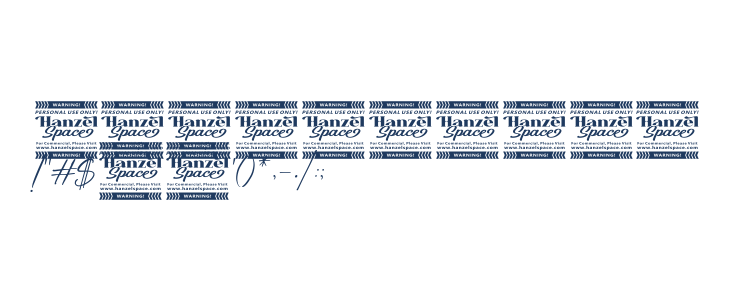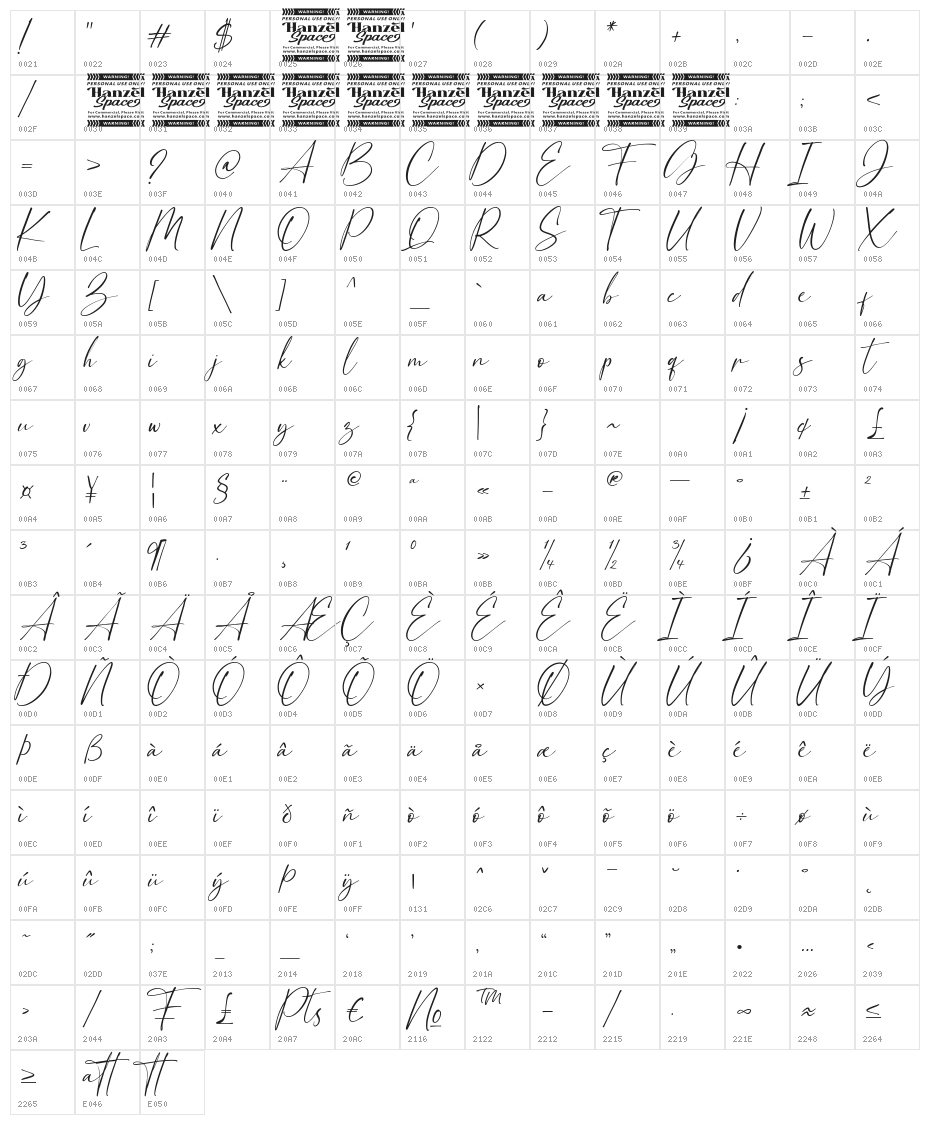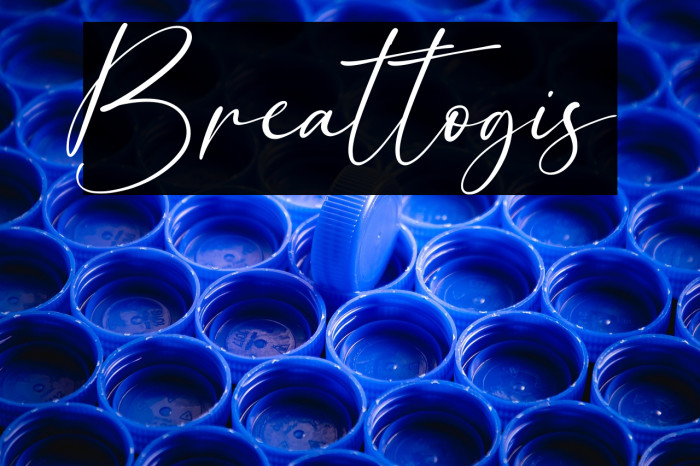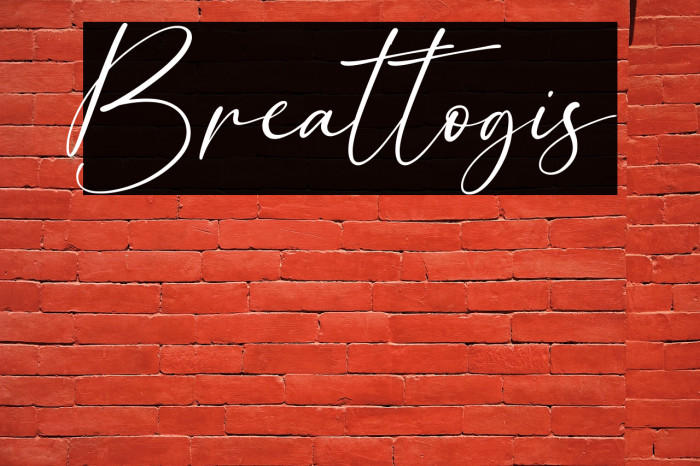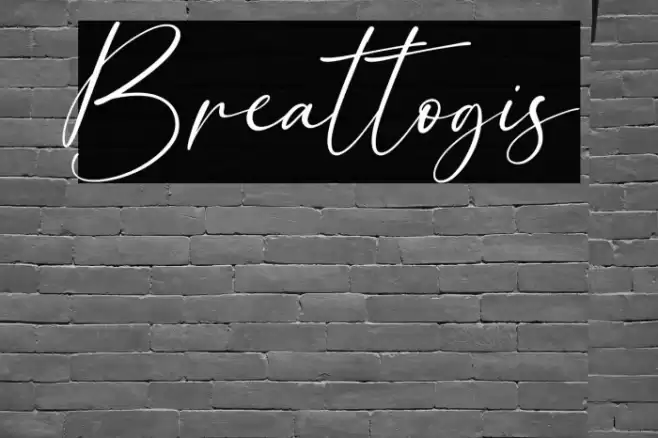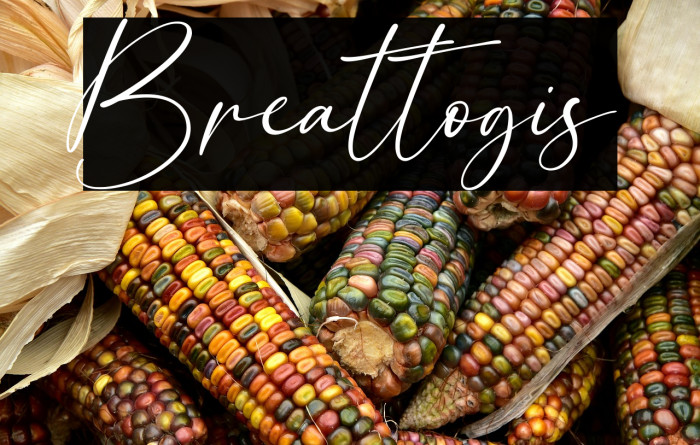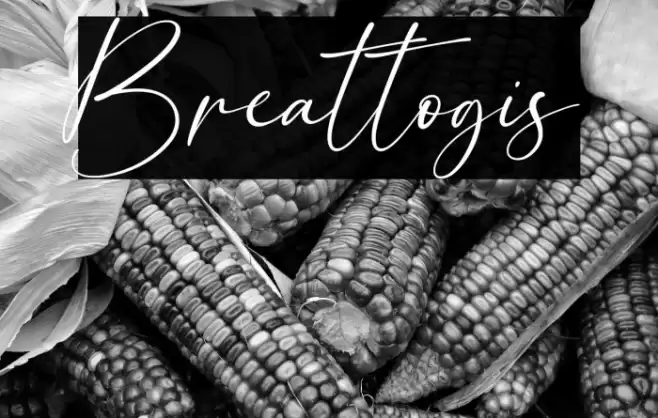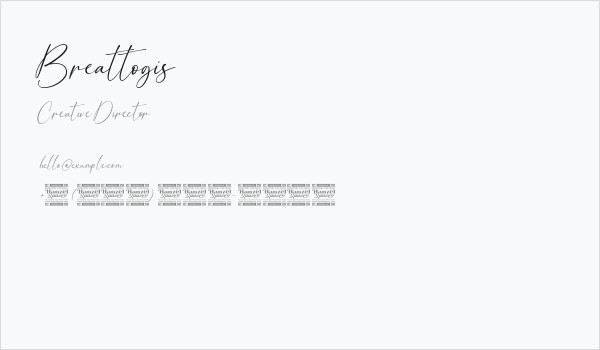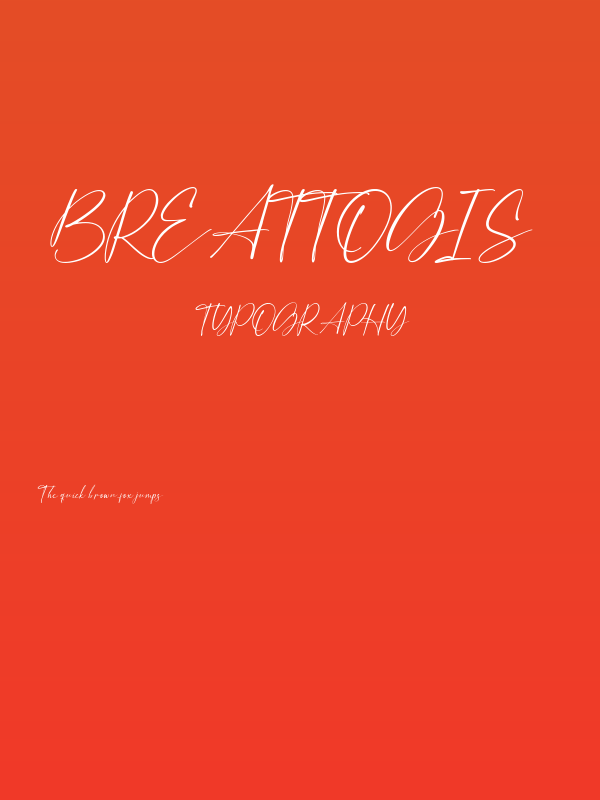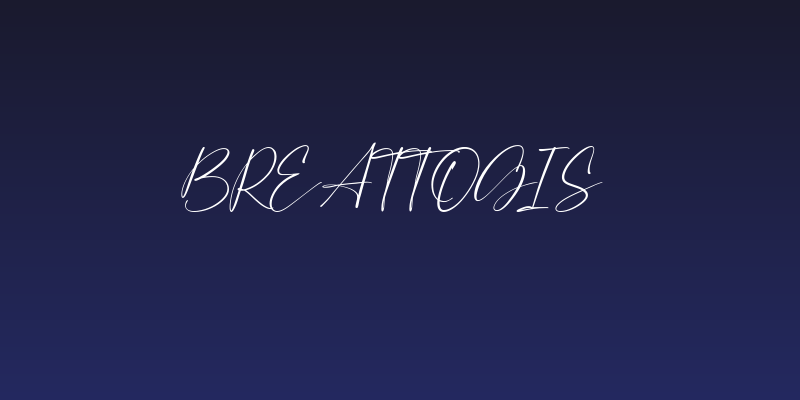
Breattogis Font
Breattogis Description
This font exudes a modern and elegant handwritten style, characterized by its fluid and cursive letterforms. The uppercase letters are tall and slightly slanted, giving a sense of movement and grace. The lowercase letters maintain a consistent flow, with some characters featuring unique loops and swashes that add a touch of sophistication. The numerals and special characters are designed to complement the overall aesthetic, maintaining the same fluidity and elegance. This font is perfect for projects that require a personal and artistic touch, such as invitations, branding, and decorative designs.
| Proposed Projects | Ideal for wedding invitations, personal branding, greeting cards, and decorative art projects. |